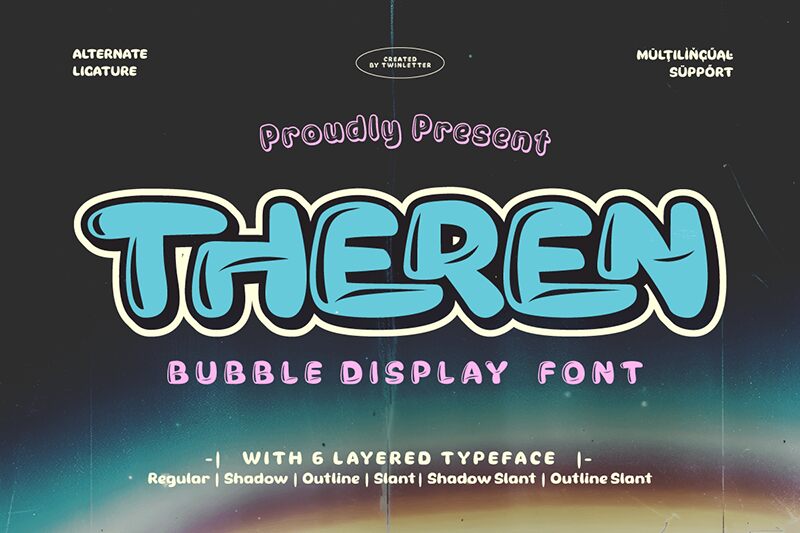
Theren font, a creation of Twinletter, showcases a rounded, smooth, and casual style with an approachable modern flair. This cartoon display font has elements like bold weight and pop art inspiration that give its letters volume and make them attention-grabbing. Despite its upfront playful appearance, there’s nothing childish about Theren font; only room for creative use.
This free display font will work well in comic books, storybooks covers, children shows posters or movie titles. Use it to finally create your dream merch items like cups or T-shirts or experiment freely with all sorts of branding-related projects. Labels and packaging design are also constant examples of Theren’s many uses.